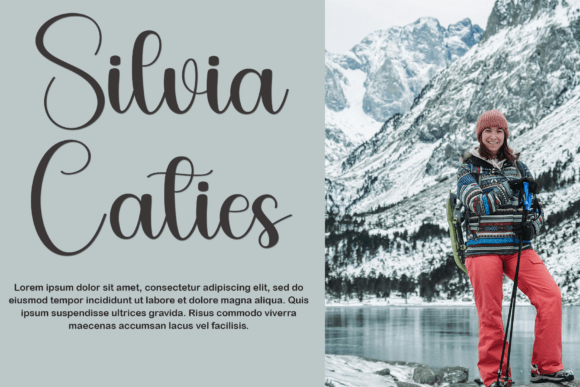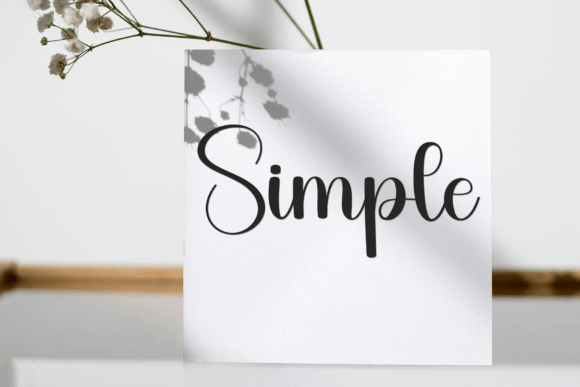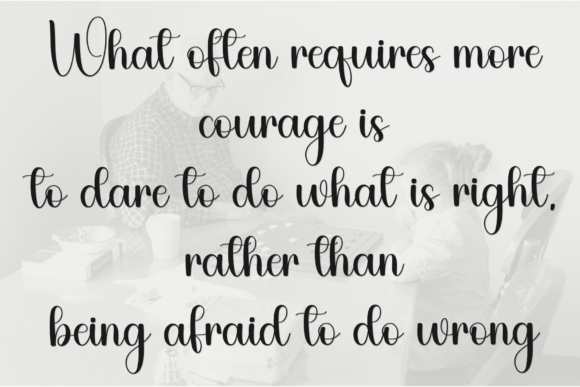
Introduction to Sample Daily Font
Remember that moment when you stumbled upon the perfect font, and it instantly sparked an idea for your creative project? For designers, finding the right font can be the difference between a good design and an exceptional one. This is where Sample Daily Font comes in – a flowing, modern script font that’s full of handwritten charm.
With its unique blend of sophistication and approachability, Sample Daily Font is a valuable design resource for any creative project. Whether you’re working on educational materials, planners, stationery, or designing a logo, this font is sure to bring warmth and confidence to your work.
Key Features of Sample Daily Font
- Unique characteristic: Unique ligatures and swashes for a creative touch
- Perfect for designers, artists, and writers looking for a distinctive design resource
Honest Review: Sample Daily Font
I recently had the chance to work with the Sample Daily Font, and I’m excited to share my honest review with you.
- ✨ High quality glyphs that make it perfect for a creative project like a magazine or a brochure.
- ✨ The transparent background makes it easy to use as a design resource in any project.
- ✨ The font is very easy to read and understand, which is a must for any design project.
- ⚠️ Limited character set – it’s not ideal for long-form content.
- ⚠️ Not suitable for formal documents or academic papers.
Overall, I think Sample Daily Font is a great design resource for short-form content like social media posts, blog titles, or even a fun quote. It’s perfect for designers who need a high-quality, creative font for a specific project. The free download is a bonus, and the transparent background makes it easy to use in any design scenario.
Sample Daily Font
Sample Daily Font is a high-quality design resource that can be used in a variety of creative projects. To get the most out of it, consider the following tips: Use it in conjunction with a transparent background to create a seamless design. Experiment with different font sizes and colors to add visual interest. Use it in a creative project, such as a logo or social media graphic.
Sample Daily Font is a versatile design resource that can be used in a variety of common use cases, including: Social media graphics, Logo design, Infographic design, Brochure design, and Presentation design.